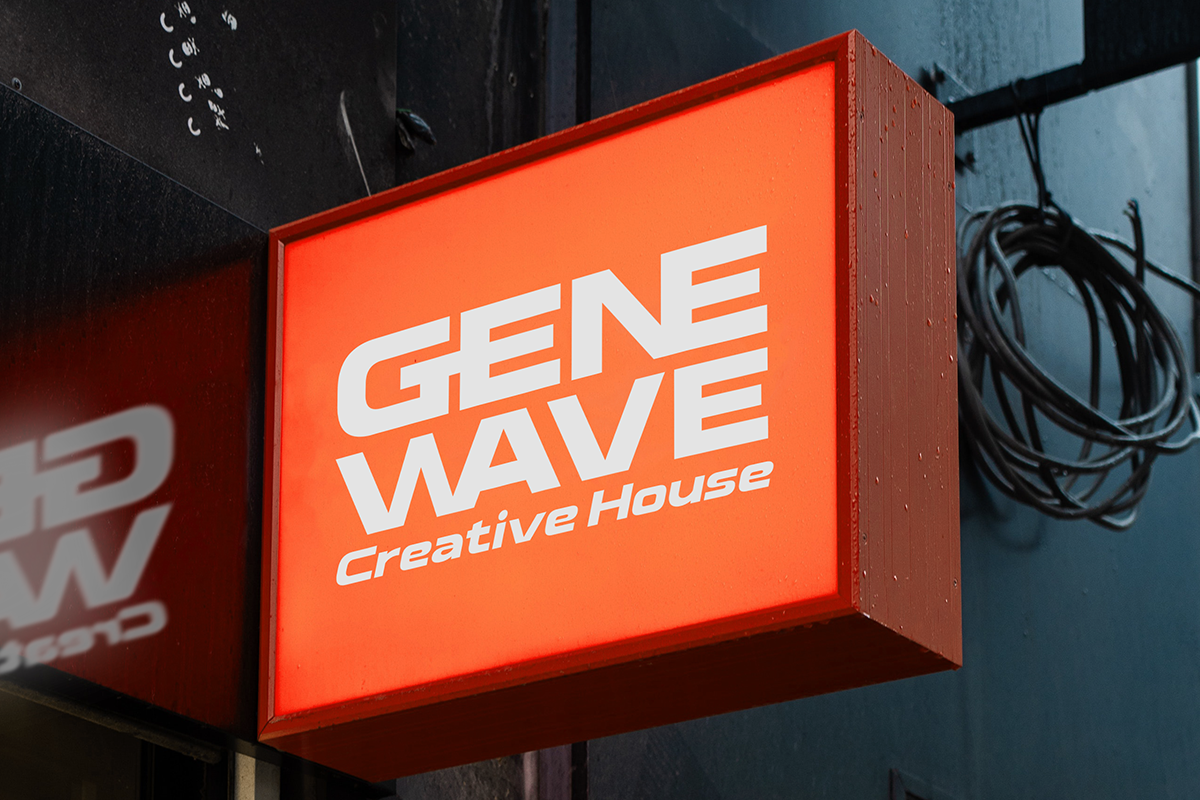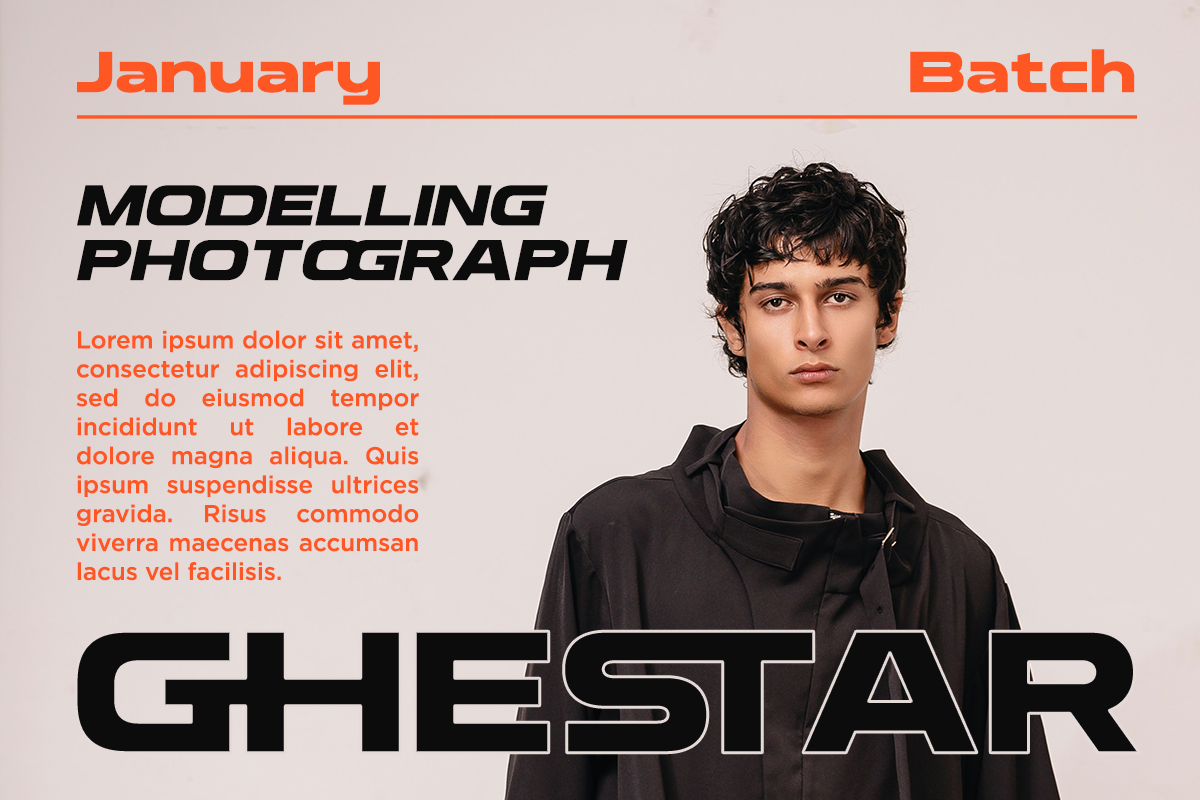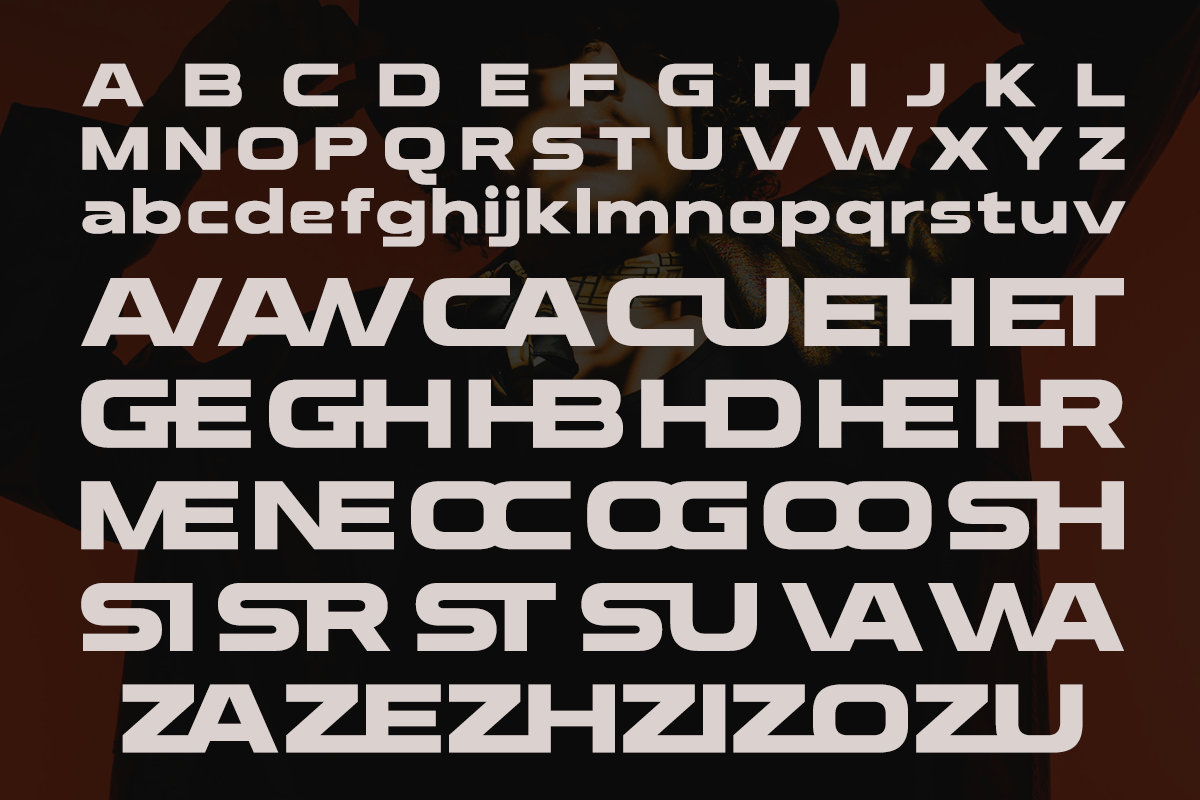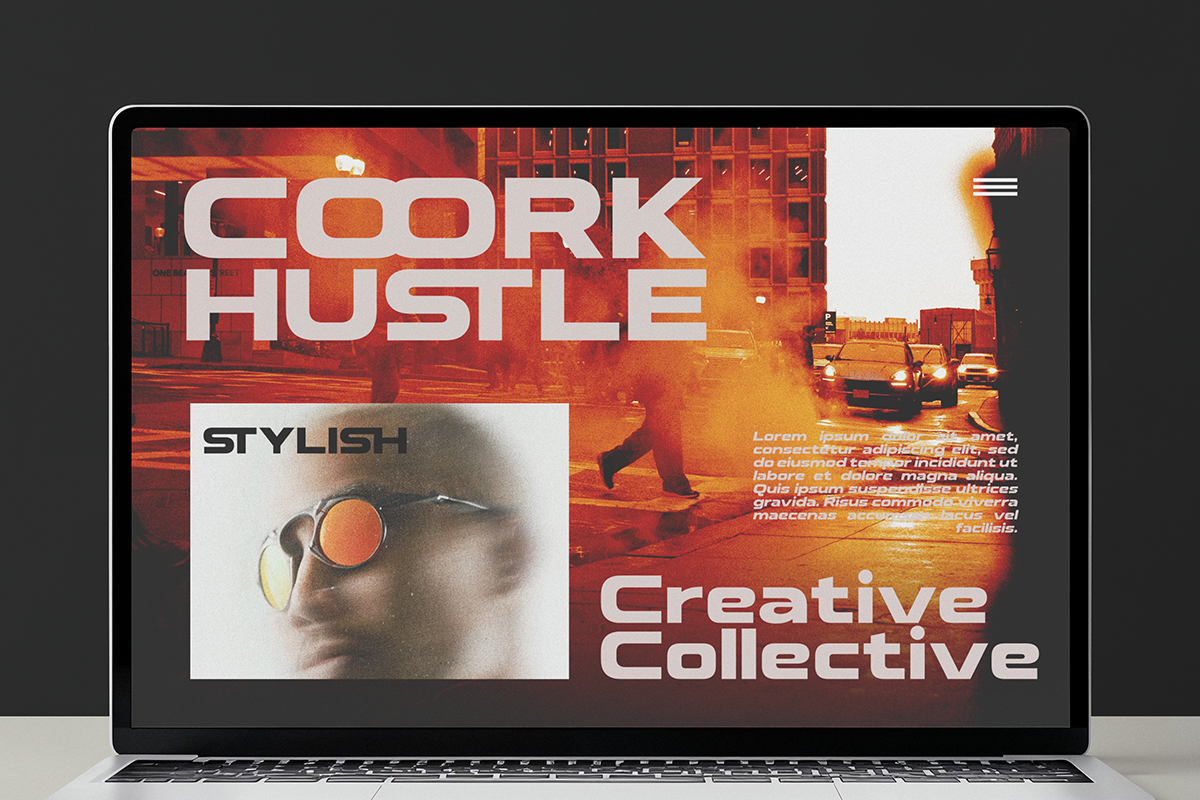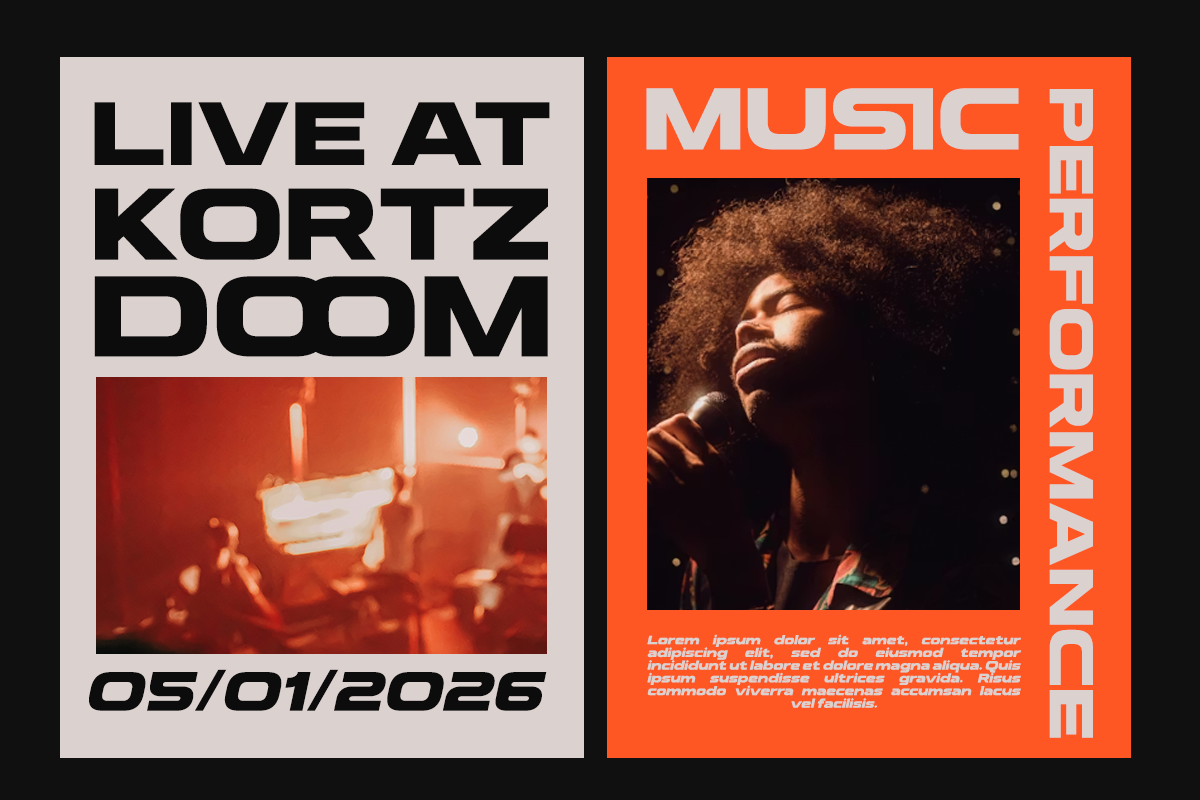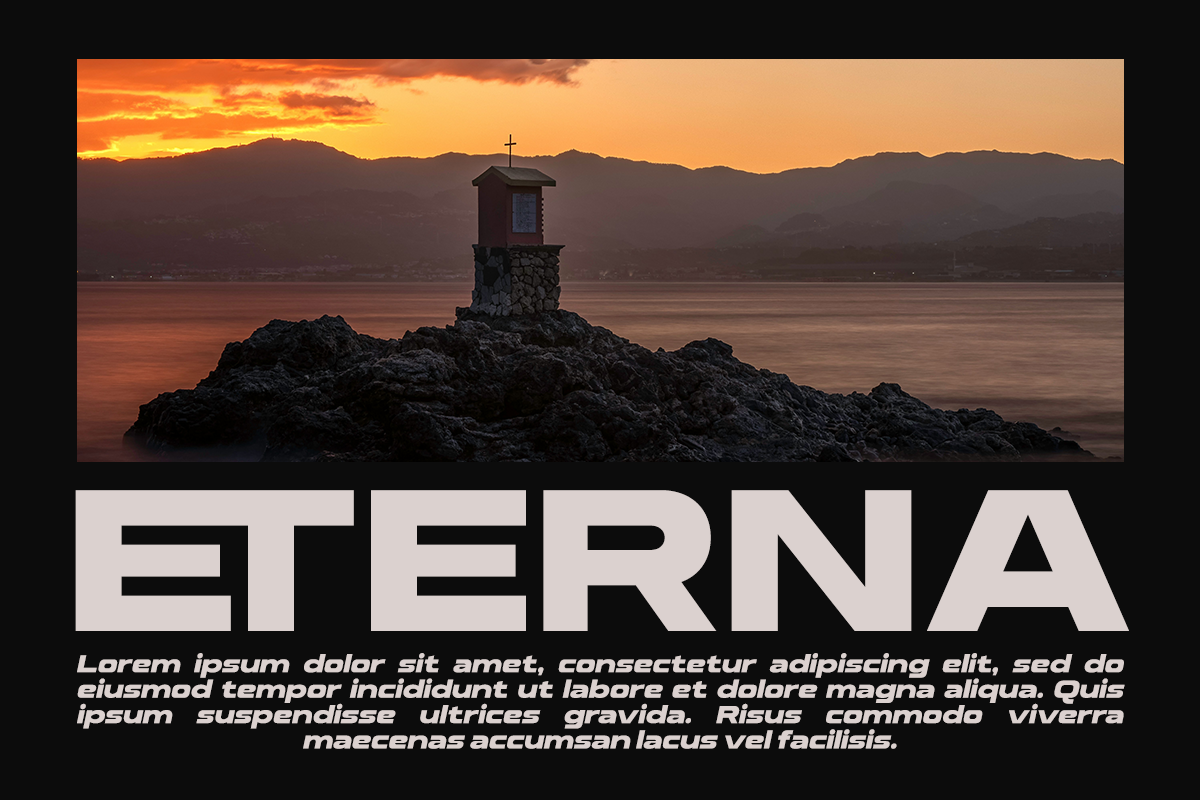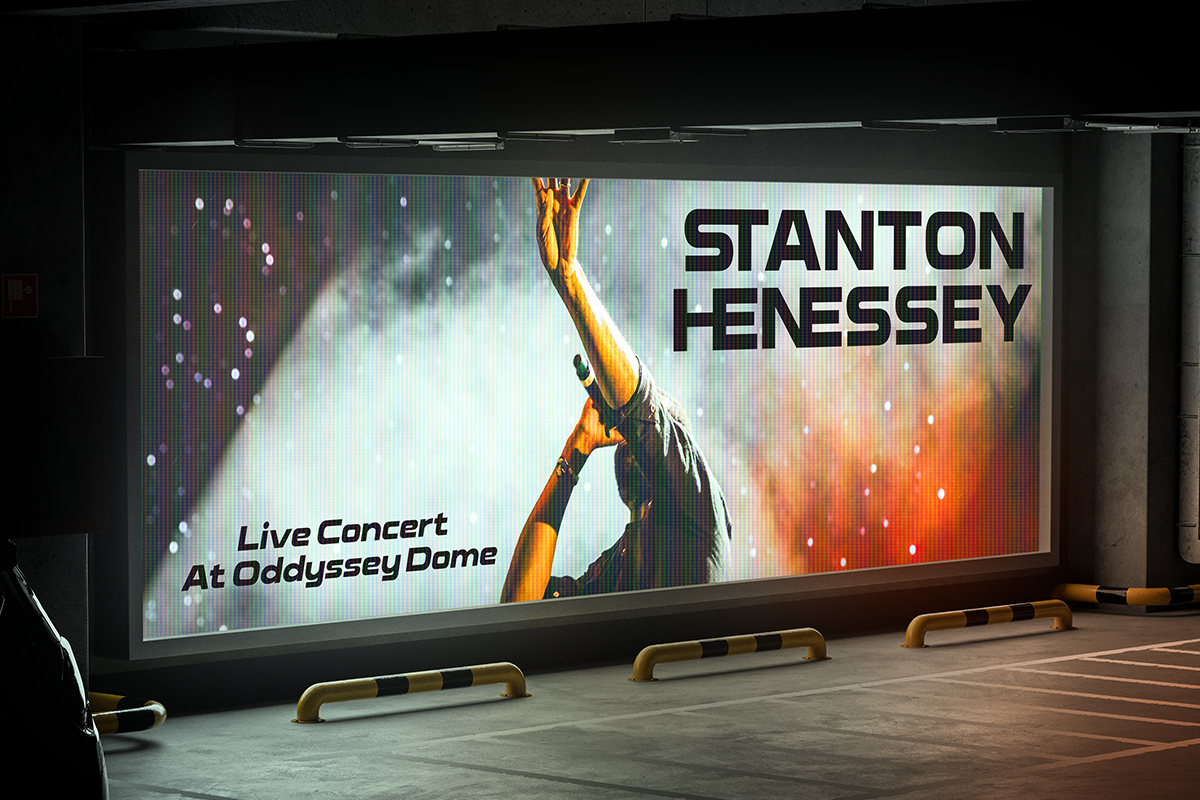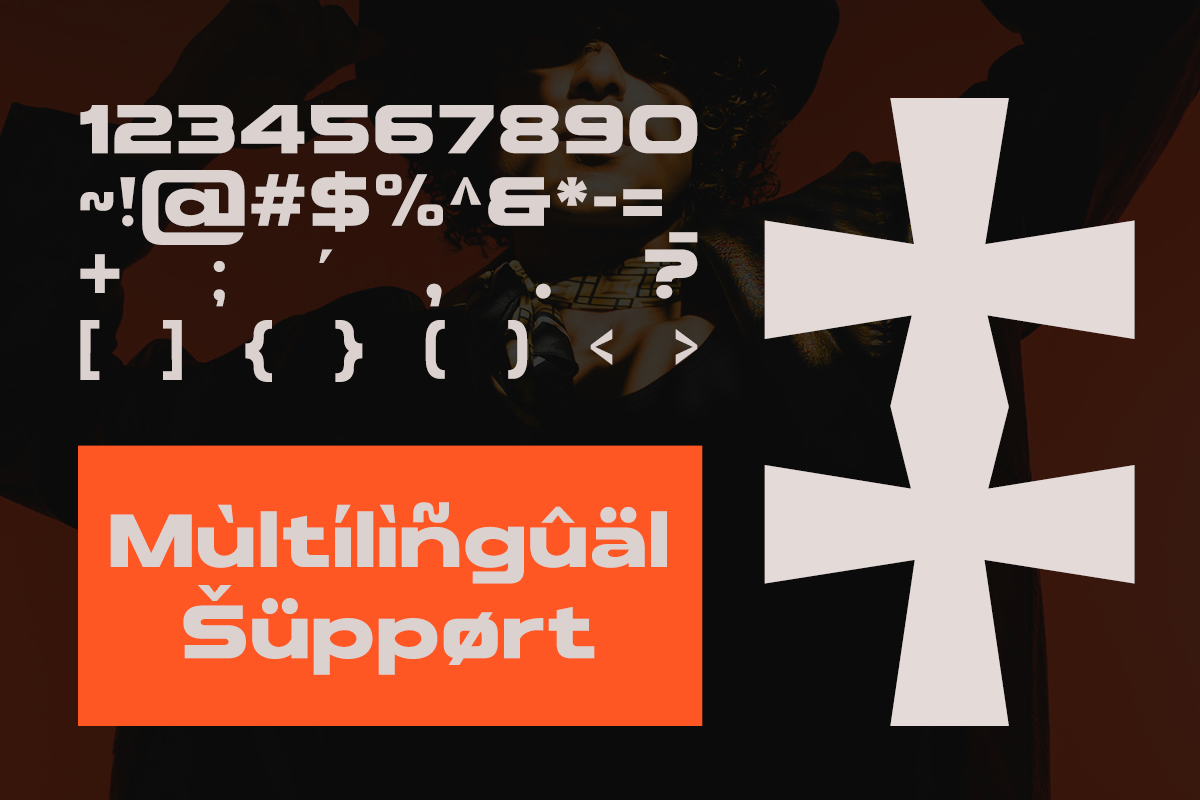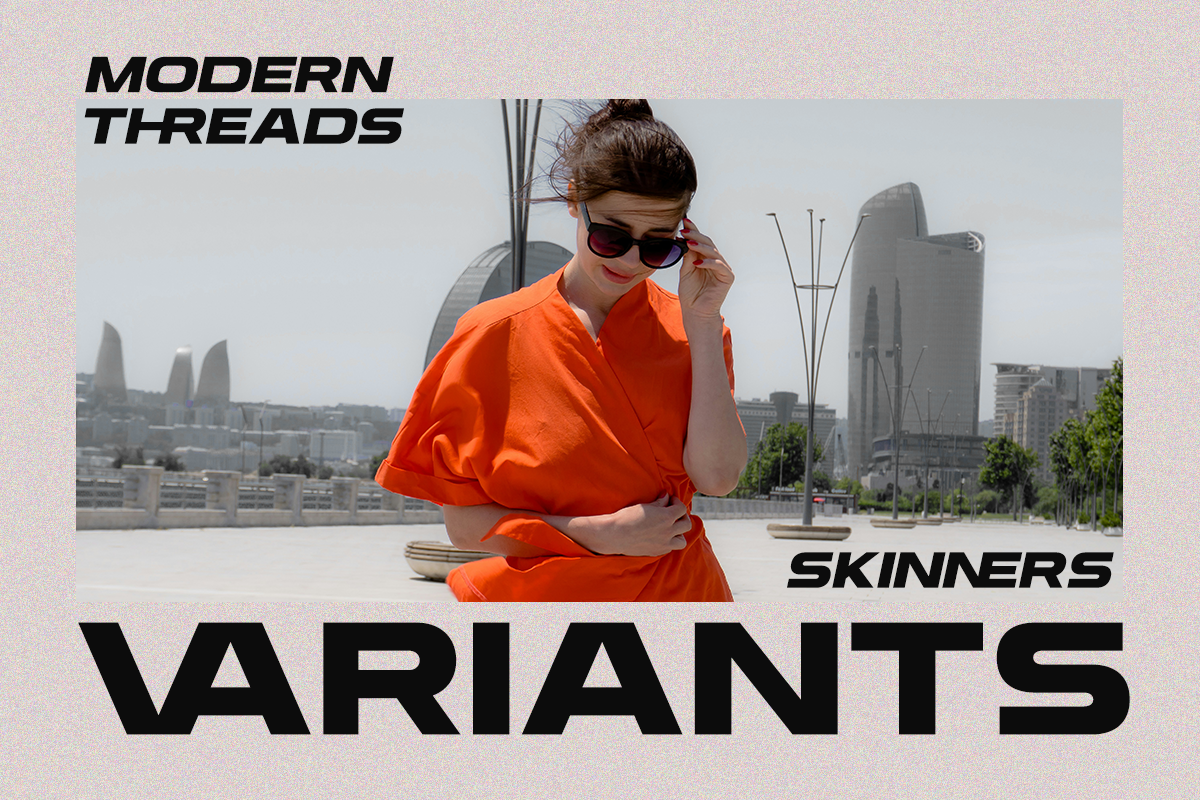
Finzer - Modern Extended Sans
Finzer is a modern extended sans serif font built for bold statements and contemporary design. Featuring strong geometric structures, wide proportions, and clean lines, Finzer delivers a powerful visual presence that instantly elevates any layout. Its extended width creates a confident, futuristic feel while maintaining excellent readability at large sizes. Perfect For Logos, branding, posters, headlines, magazine covers, advertising, website headers, tech branding, editorial design, social media graphics, packaging design
- Stylish Ligature Set
- Symbol and Number